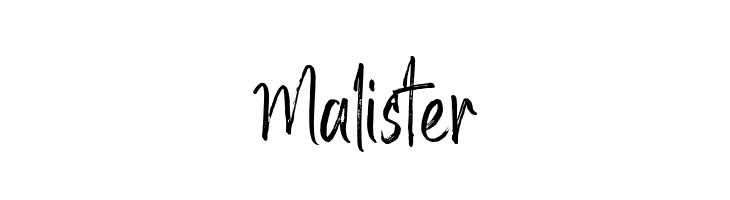
A dynamic, brush-style font with expressive strokes and fluid forms.
A lively and flowing script font with elegant curves and smooth connections.
A graceful and elegant script font with flowing, interconnected letters.
A lively, expressive handwritten font with flowing cursive letterforms.
A high-contrast, modern font with sharp angles and bold strokes.
A graceful and flowing script font with elegant cursive letterforms.
A graceful script font with flowing, interconnected letters and elegant curves.
A bold, energetic script font with a brush-like, handcrafted style.
A lively and expressive handwritten font with fluid strokes and playful elegance.
A sophisticated script font with flowing, interconnected letters and ornate flourishes.